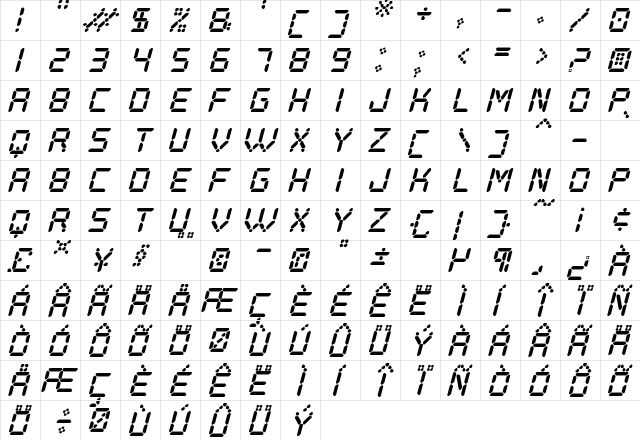
Digital Play Italic St Regular
Design Context for Digital Play Italic St Typeface
Digital Play Italic St has a distinctly futuristic character, with geometric precision and clean angles that feel at home in technology, gaming, and sci-fi contexts. Its italic angle brings a sense of urgency and motion to the letterforms.
Pro Tip: Use Digital Play Italic St in combination with a neutral sans for body text. Let it define the brand voice in headlines while keeping reading comfortable elsewhere.